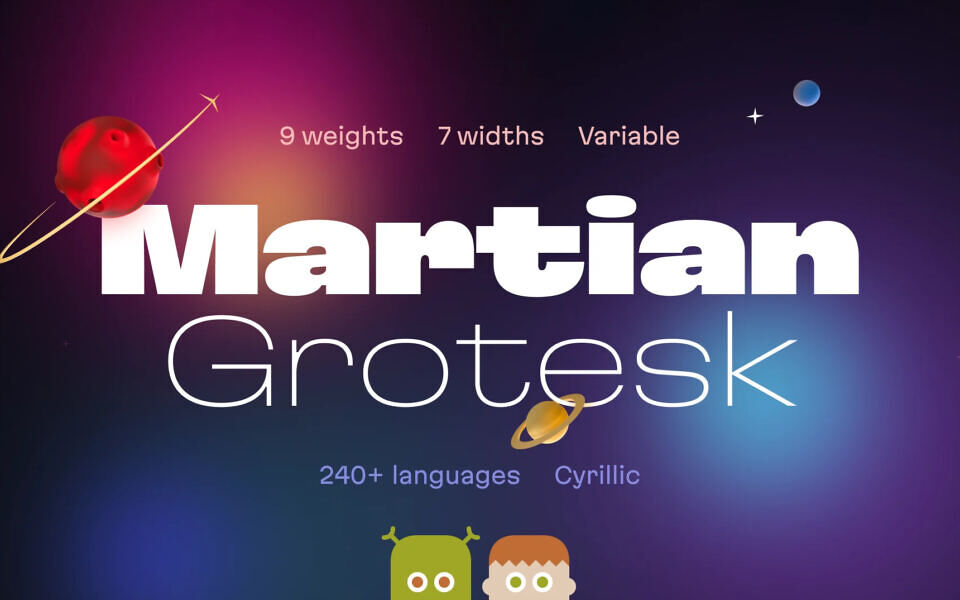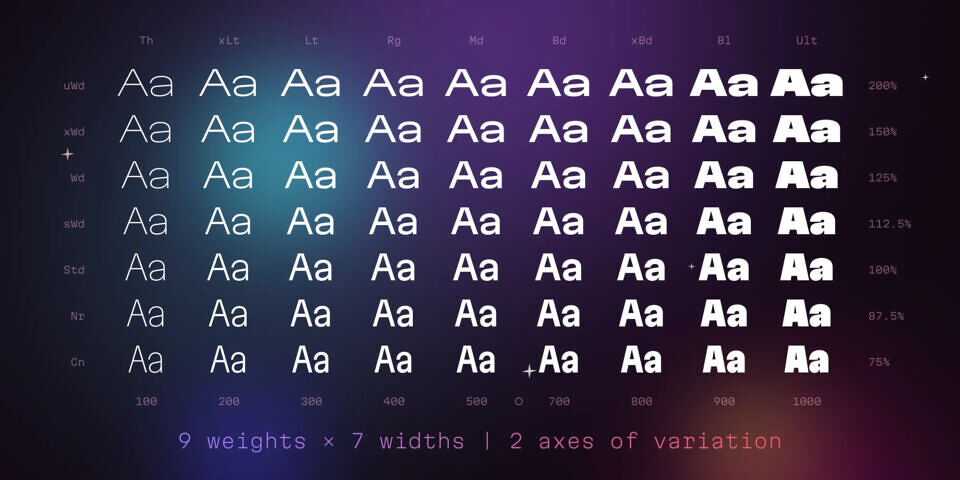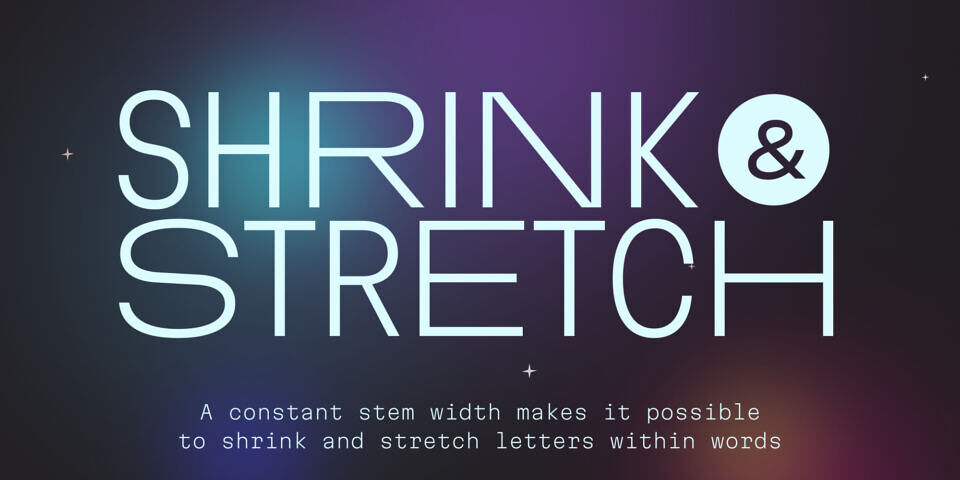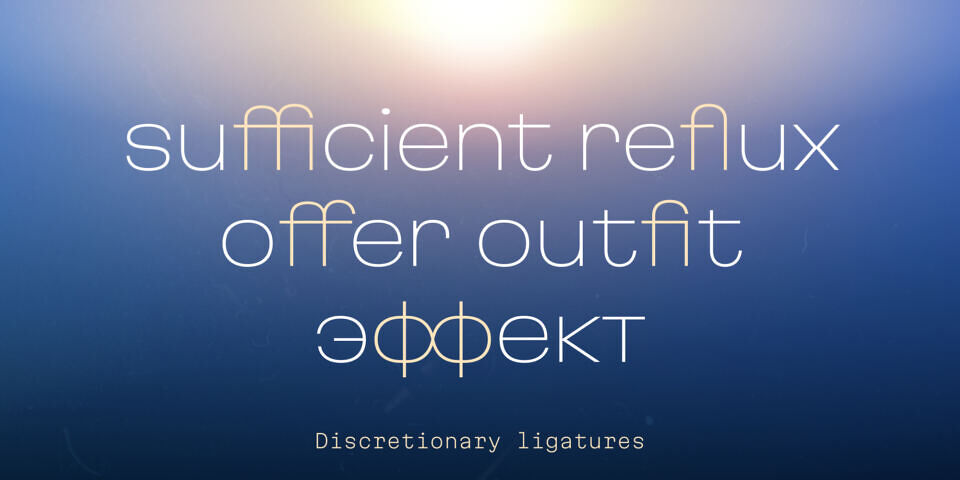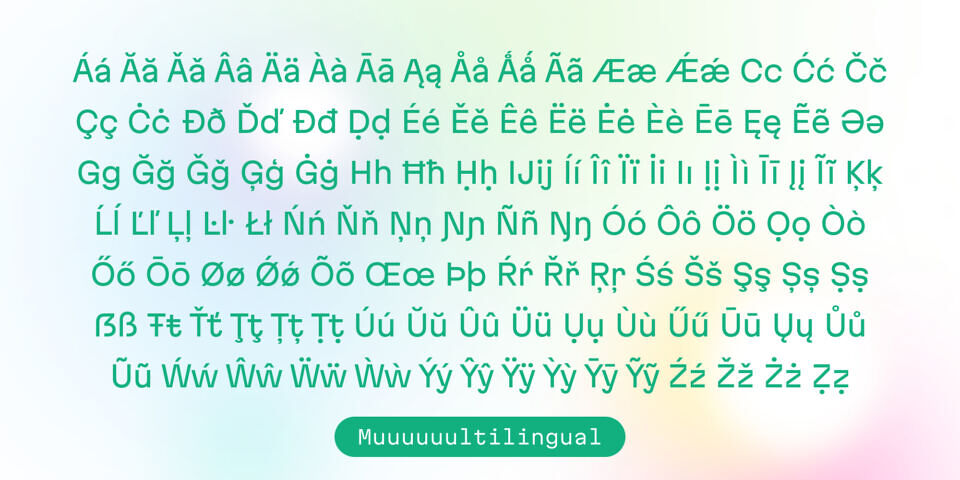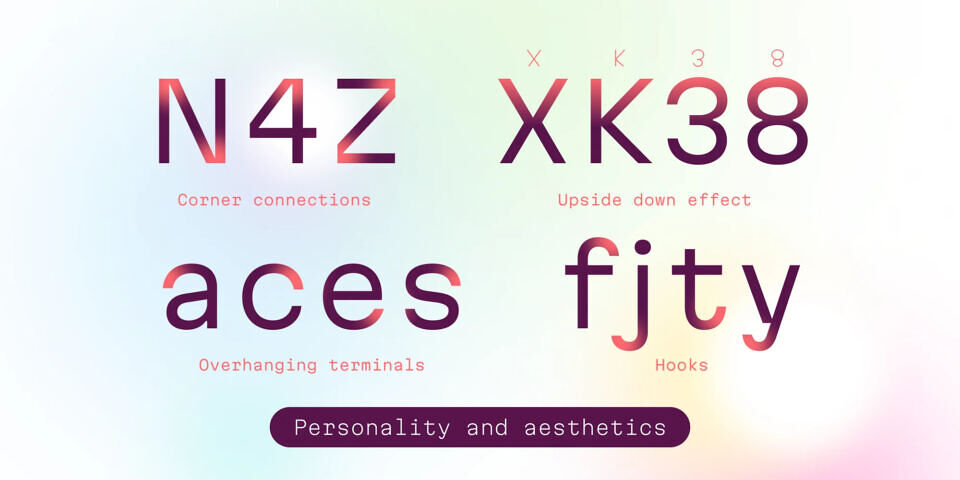
Martian Grotesk is a sans-serif variable typeface family with a distinctive personality. It includes 63 static styles and is variable along two axes: weight (from Thin to Ultra Black) and width (from Condensed to Ultra Wide). Its subtly brutalist character makes it stand out visually, while styles from regular to bold are finely tuned for use in body text.
It’s especially optimized for on-screen use. Vertical metrics ensure that text labels appear vertically centered within UI elements. Character heights are aligned to the pixel grid for extra clarity and sharpness, and both PostScript and TrueType hinting are applied automatically.